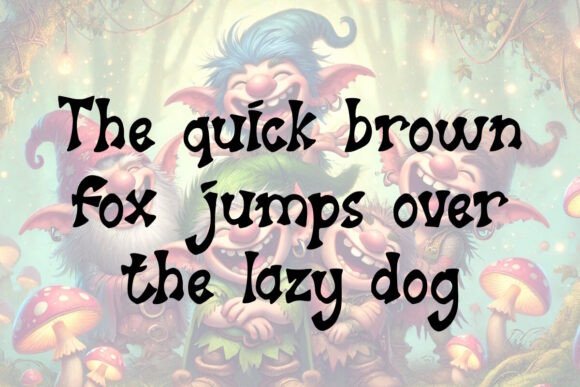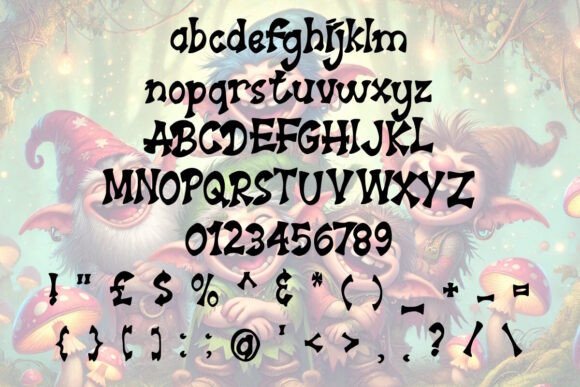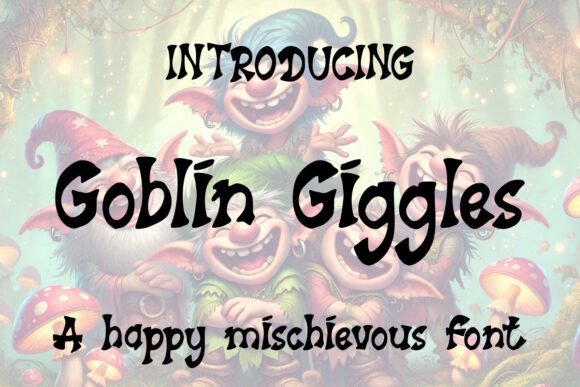
Goblin Giggles Font: Adding a Touch of Whimsy to Your Designs
Are you tired of using the same old fonts in your designs? Do you want to add a sprinkle of magic and a dash of mischief to your projects? Look no further than the Goblin Giggles font! This quirky, slightly wonky font is perfect for designers and crafters who want to bring a playful enchanted forest feel to their work.
The Charm of Goblin Giggles
Goblin Giggles is a typeface that is sure to captivate your audience with its uneven strokes and storybook charm. The font’s unique design gives it a hand-crafted feel that’s perfect for projects that need a personal touch. Whether you’re creating spellbinding invitations, designing for fantasy themes, or simply want to add a whimsical touch to your work, Goblin Giggles is the perfect choice.
Perfect for Fantasy and Whimsical Designs
Goblin Giggles is a font that’s tailor-made for fantasy and whimsical designs. Its playful and mischievous feel makes it perfect for projects that require a touch of magic and wonder. Imagine using Goblin Giggles to create:
- Enchanted forest-themed party invitations
- Fantasy-inspired book covers or illustrations
- Whimsical logos or branding materials for a craft or art business
- Spellbinding social media graphics or posts
What Makes Goblin Giggles Special?
So, what sets Goblin Giggles apart from other fonts? Here are just a few things that make it special:
- Unique and quirky design: Goblin Giggles has a one-of-a-kind design that’s sure to grab attention.
- Playful and whimsical feel: This font has a lighthearted and mischievous feel that’s perfect for fantasy and whimsical designs.
- Hand-crafted feel: Goblin Giggles has an uneven, hand-crafted feel that gives it a personal touch.
- Storybook charm: This font has a charming, storybook feel that’s perfect for creating magical and enchanting designs.
Tips for Using Goblin Giggles
Here are a few tips for using Goblin Giggles in your designs:
- Use it sparingly: Goblin Giggles is a font that’s best used sparingly. Use it as a headline or title font, and pair it with a simpler font for body text.
- Experiment with colors: Goblin Giggles looks great in a variety of colors, from bright and bold to pastel and soft. Experiment with different colors to find the perfect look for your design.
- Pair it with other whimsical fonts: Goblin Giggles pairs well with other whimsical fonts. Try pairing it with a font like Pacifico or Great Vibes for a unique and playful look.
Goblin Giggles is a font that’s sure to bring a touch of magic and whimsy to your designs. Its unique and quirky design, playful and mischievous feel, and hand-crafted feel make it perfect for fantasy and whimsical projects. Whether you’re a designer, crafter, or simply someone who loves to add a little magic to their work, Goblin Giggles is a font that’s sure to delight. So why not give it a try and see the magic for yourself?